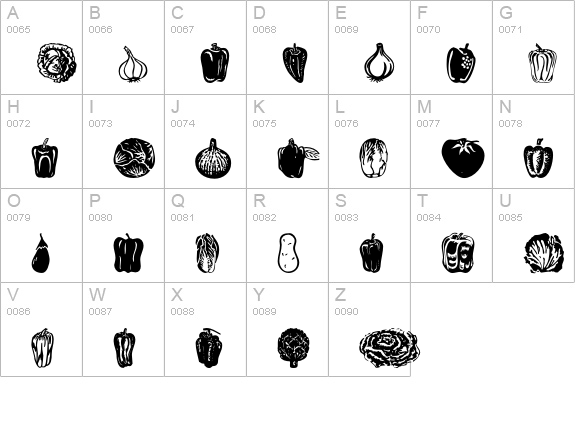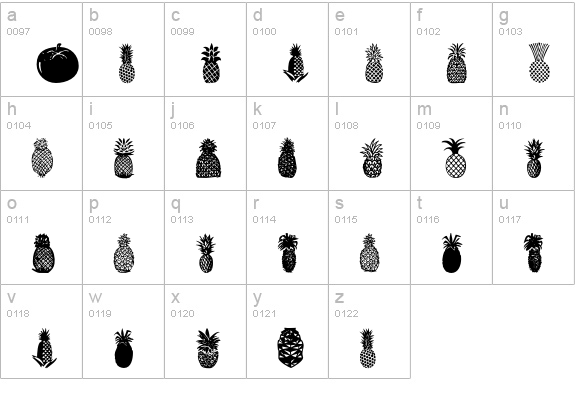
AIFruechteOne Font Details
AIFruechteOne font is a whimsical and playful typeface that exudes a sense of fun and creativity. With its unique and quirky design, this font is perfect for adding a touch of charm to any project. AIFruechteOne is a versatile font that can be used for a variety of purposes, from branding to social media graphics to invitations. The best part? AIFruechteOne font is completely free to download at FontsMarket.com. This means that you can easily add this delightful font to your collection without having to spend a dime. Whether you're a designer looking for a fresh new font to play with or someone looking to add a bit of flair to your personal projects, AIFruechteOne is the perfect choice. Download it today and let your creativity run wild with this fantastic free font!